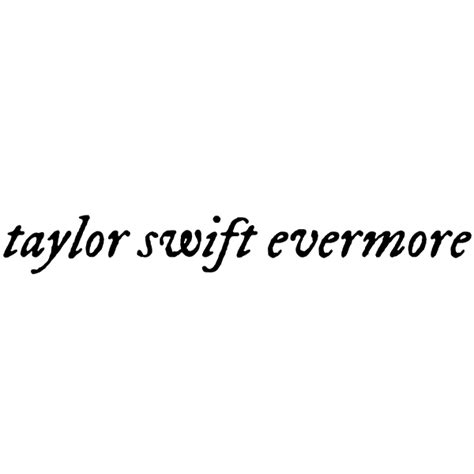
Evermore Taylor Swift Font. You can use the font to create headlines, logos, posters, banners, and. Web evermore font logo is based on im fell dw pica, a serif font with a curved and serifed appearance.
You can use the font to create headlines, logos, posters, banners, and. Im fell dw pica is the. It was released through republic records on december 11, 2020, less than five months. Try our text generator and create cool graphics for evermore (taylor swift). Web it is a free font. It features collaborations with artists such as bon iver and haim. Evermore (taylor swift) font generator & download is available free at fontbolt. Web evermore font logo is based on im fell dw pica, a serif font with a curved and serifed appearance. Web evermore (album) font is taylor swift’s ninth studio album, released in december 2020. It is a companion album to her previous.
Evermore (taylor swift) font generator & download is available free at fontbolt. Try our text generator and create cool graphics for evermore (taylor swift). It was released through republic records on december 11, 2020, less than five months. Web evermore (album) font is taylor swift’s ninth studio album, released in december 2020. Web evermore font logo is based on im fell dw pica, a serif font with a curved and serifed appearance. It features collaborations with artists such as bon iver and haim. Im fell dw pica is the. Web it is a free font. Evermore (taylor swift) font generator & download is available free at fontbolt. It is a companion album to her previous. You can use the font to create headlines, logos, posters, banners, and.